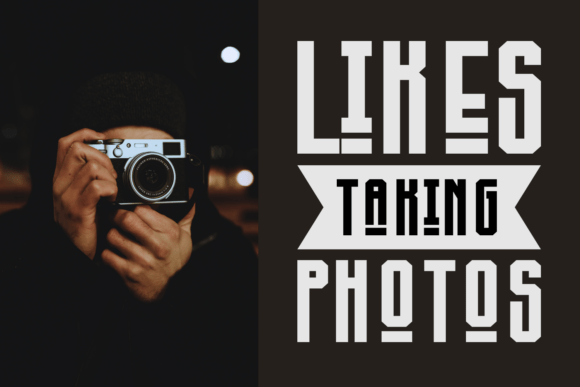
Unleash the Power of Typography with Fortune Seeker Slab Serif Fonts
Are you on the hunt for a font that embodies the essence of vintage elegance and modern sophistication? Look no further than the Fortune Seeker Slab Serif Fonts, expertly crafted by 7ntypes. This stunning collection of typographical delights is perfect for designers seeking to add a touch of classic charm to their projects, while also making a bold statement. In this article, we’ll dive into the world of Fortune Seeker Slab Serif Fonts, exploring their unique features, versatility, and the endless possibilities they offer for creative expression.
Steeped in Vintage Allure
Fortune Seeker Slab Serif Fonts are steeped in vintage allure, evoking the nostalgic spirit of the 4th of July and Independence Day celebrations in the USA. These fonts are designed to transport you back in time, with a unique blend of classic and modern elements that will make your designs stand out. The vintage charm of Fortune Seeker Slab Serif Fonts is perfect for creating eye-catching apparel designs, book covers, and branding materials that exude a sense of timeless sophistication.
Exemplifying Alternative Aesthetics
Fortune Seeker Slab Serif Fonts exemplify alternative aesthetics, providing striking accents that add a touch of drama to any design. The clean and round characters effortlessly fit into a variety of projects, from greeting cards and magazine layouts to packaging designs and logotypes. The authentic, vintage feel of these fonts sings from every curve and edge, making them a perfect choice for designers seeking to create something truly unique.
One of the standout features of Fortune Seeker Slab Serif Fonts is their adaptability and versatility. The smooth textures of these fonts can seamlessly blend into various design applications, including t-shirt prints, book covers, and branding materials. The swash variety of fonts is meticulously crafted to highlight quotes, adding an extra layer of creativity to your designs.
A Family of Fonts with Endless Possibilities
Fortune Seeker Slab Serif Fonts are designed as a family of fonts, offering a range of possibilities for creative expression. The fonts come in regular and italic versions, with full multilingual support. This means you can use them for a wide range of projects, from editorial designs to branding and advertising materials.
The Fortune Seeker Slab Serif Fonts are perfect for:
- Apparel designs: Create eye-catching t-shirts, hoodies, and other clothing items with these stunning fonts.
- Book covers: Add a touch of classic elegance to your book covers with Fortune Seeker Slab Serif Fonts.
- Branding: Use these fonts to create unique and memorable brand identities.
- Greeting cards: Design beautiful greeting cards for special occasions with these elegant fonts.
- Magazine layouts: Use Fortune Seeker Slab Serif Fonts to create visually stunning magazine layouts.
- Packaging designs: Add a touch of sophistication to your packaging designs with these clean and elegant fonts.
Typography Tips for Using Fortune Seeker Slab Serif Fonts
To get the most out of Fortune Seeker Slab Serif Fonts, here are some typography tips to keep in mind:
- Pair with sans serif fonts: Combine Fortune Seeker Slab Serif Fonts with sans serif fonts for a striking contrast.
- Experiment with font sizes: Play around with different font sizes to create visual hierarchy and emphasis.
- Use swashes: Add a touch of elegance to your designs with the swash variety of fonts.
- Pay attention to spacing: Make sure to adjust the spacing between letters and lines to create a harmonious design.
Multilingual Support for Global Designs
Fortune Seeker Slab Serif Fonts come with full multilingual support, making them perfect for designers working on global projects. Whether you’re designing for a European, Asian, or Latin American audience, these fonts have got you covered.
In conclusion, Fortune Seeker Slab Serif Fonts are a treasure trove of typographical elegance, offering a unique blend of vintage allure and modern sophistication. With their adaptability, versatility, and endless possibilities for creative expression, these fonts are perfect for designers seeking to break away from the mold and create something truly unique. So why wait? Unleash the power of typography with Fortune Seeker Slab Serif Fonts and take your designs to the next level.